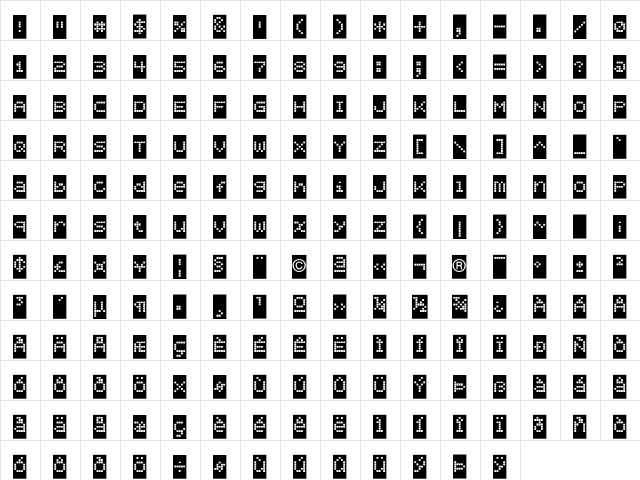
BubbledotICG CoarseNeg Font Preview
BubbledotICG CoarseNeg
Design Context for BubbledotICG Typeface
BubbledotICG celebrates the constraints of early digital type, turning pixel geometry into a distinctive and immediately recognisable style.
Well-suited to indie game interfaces, retro computing aesthetics, and pixel art-adjacent design work.